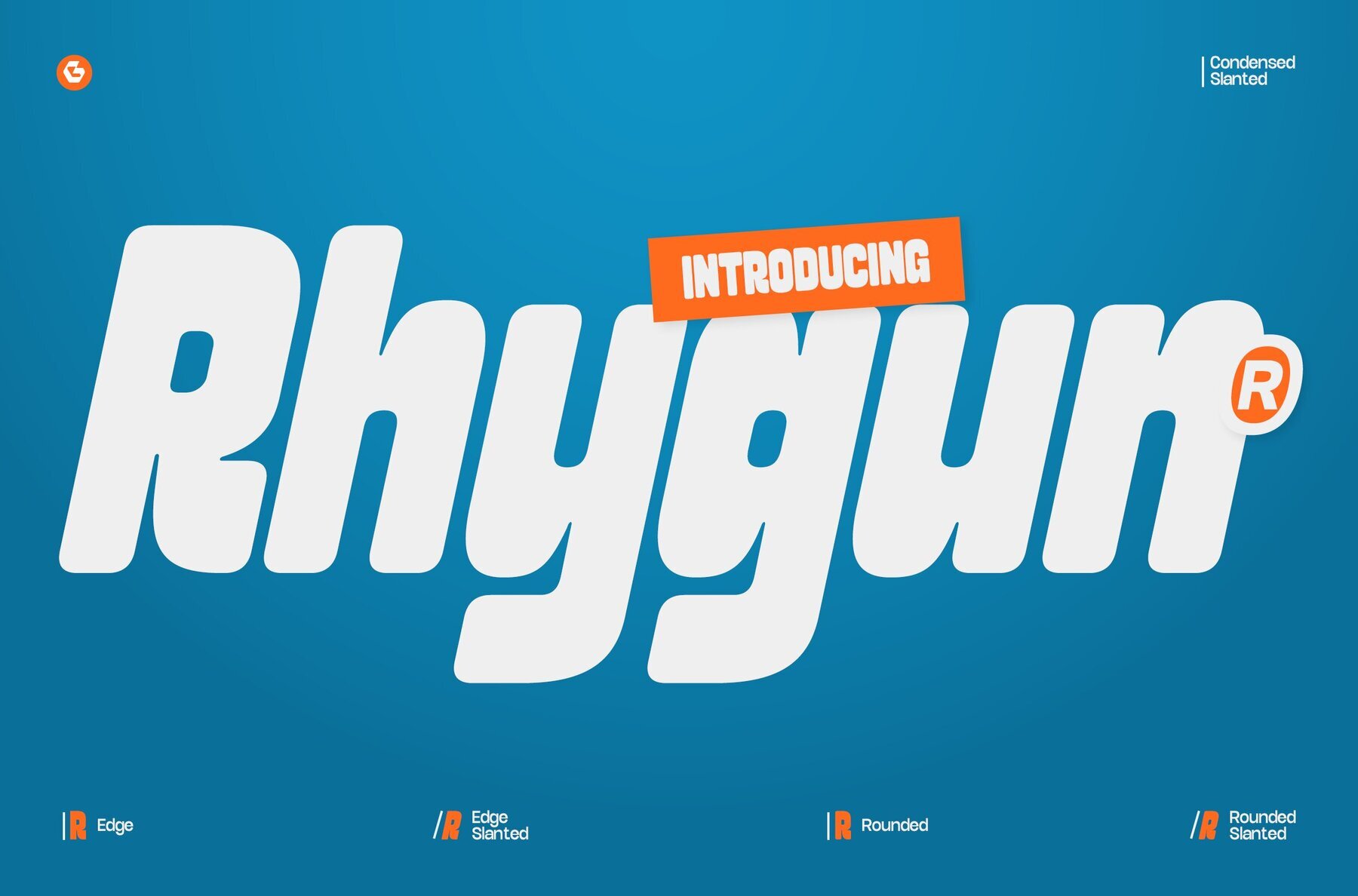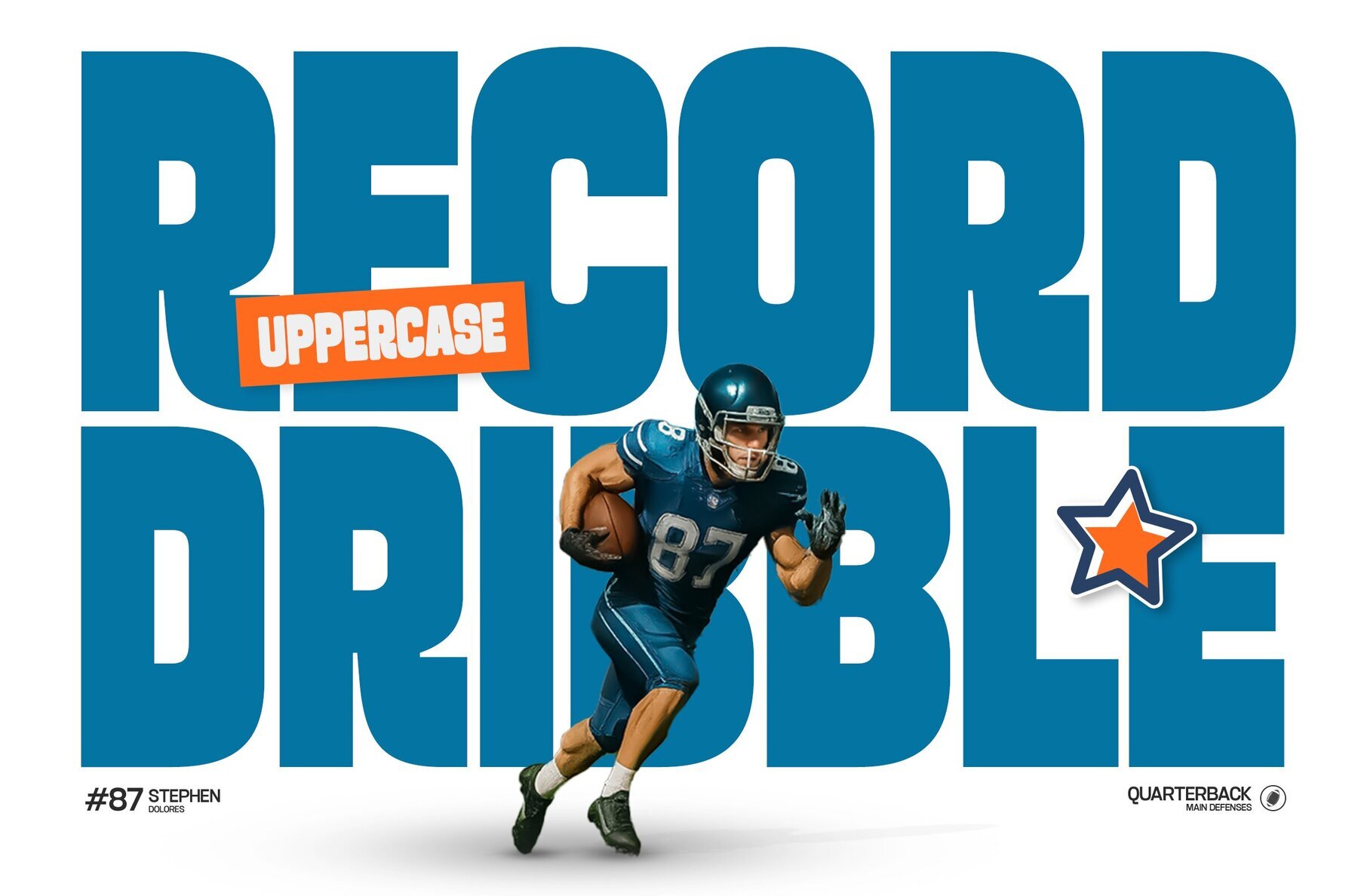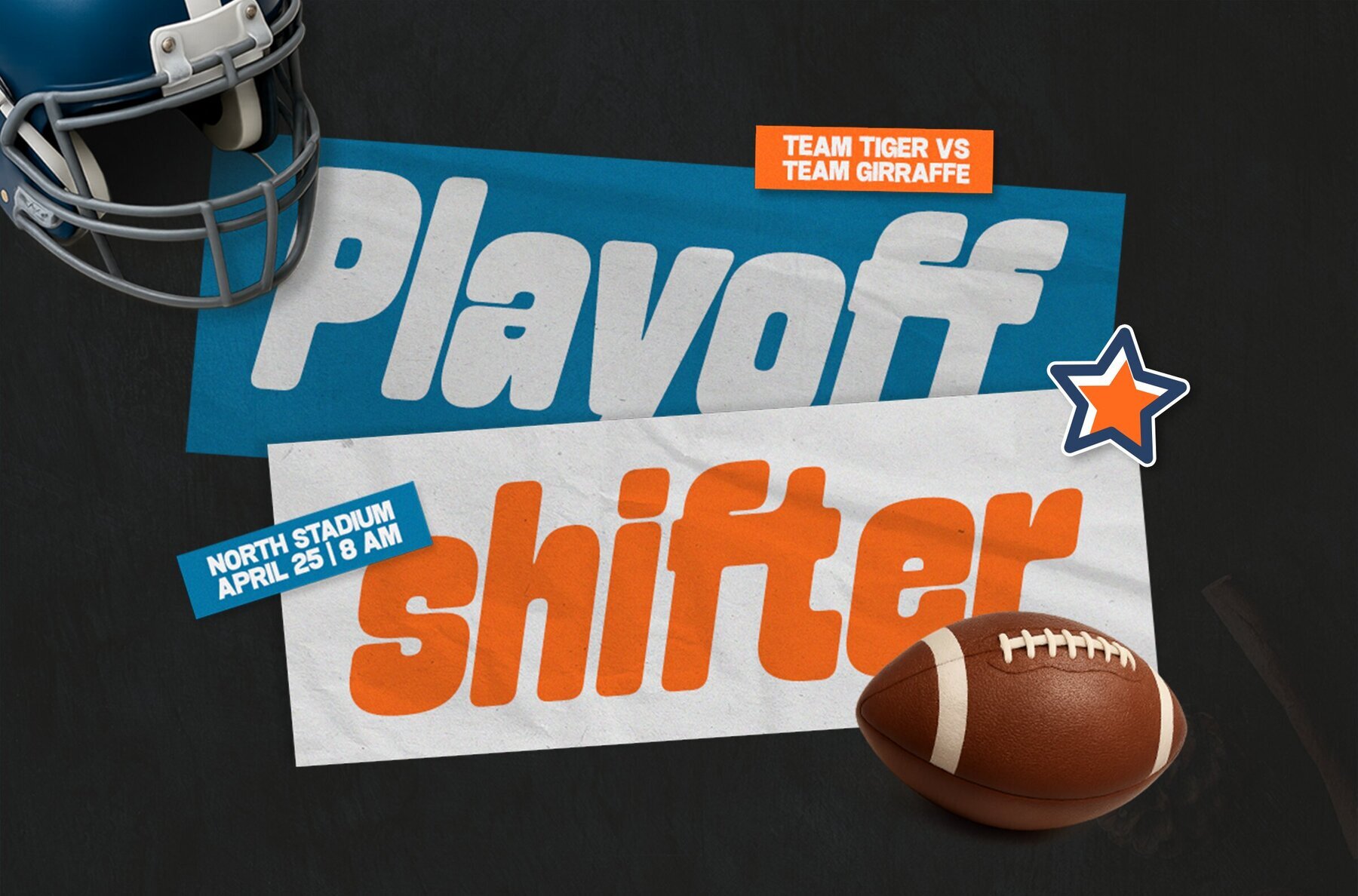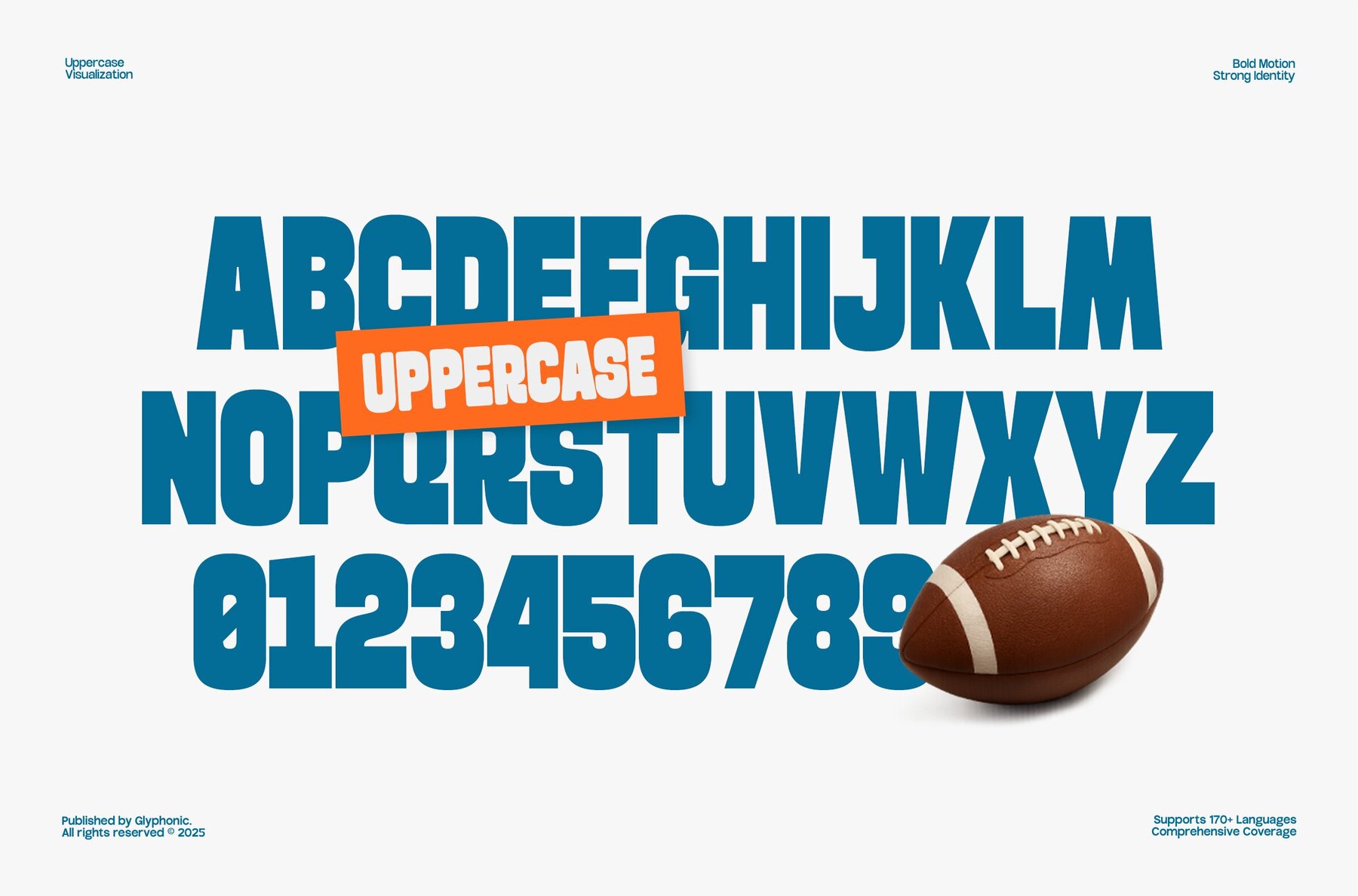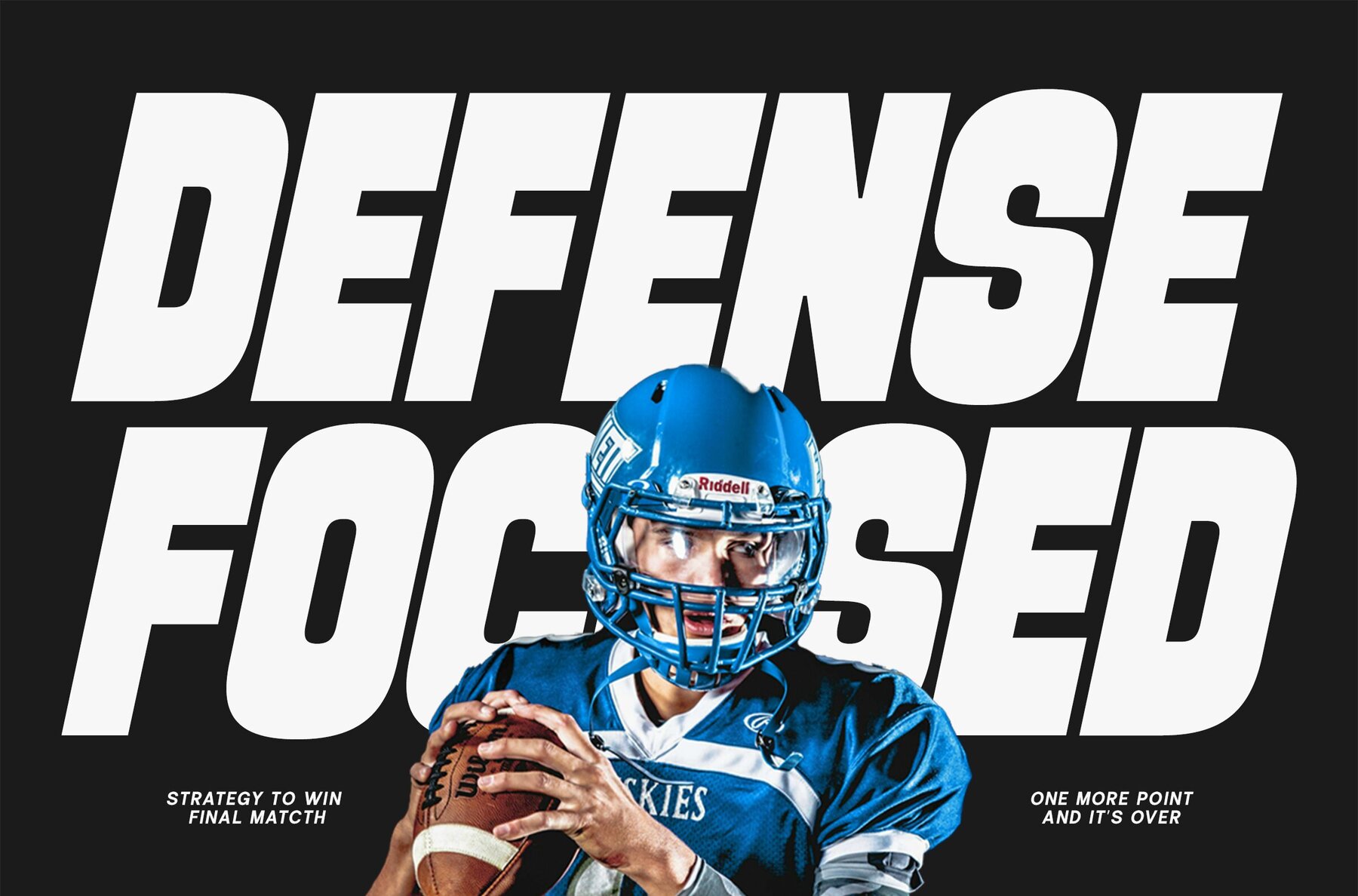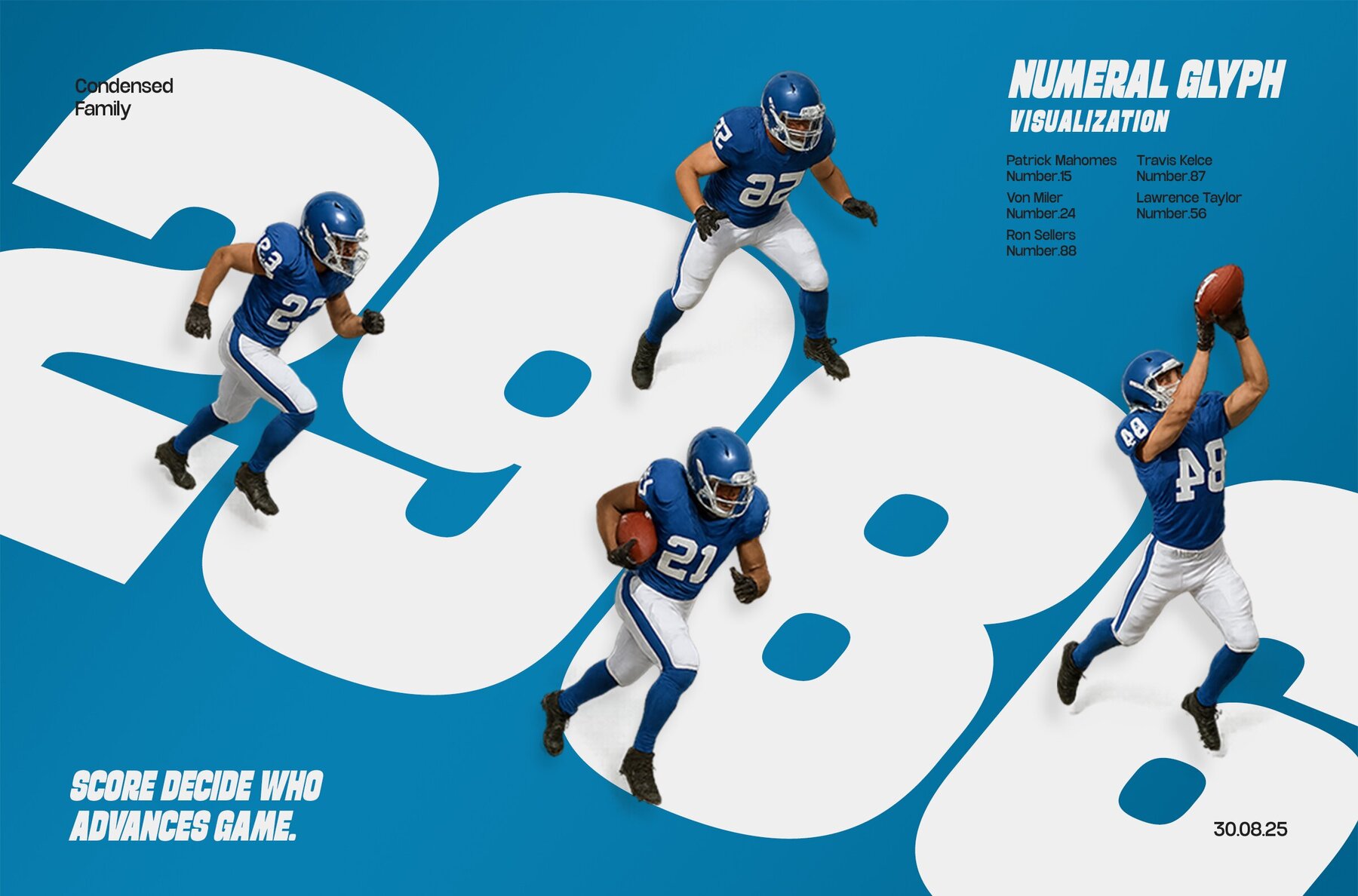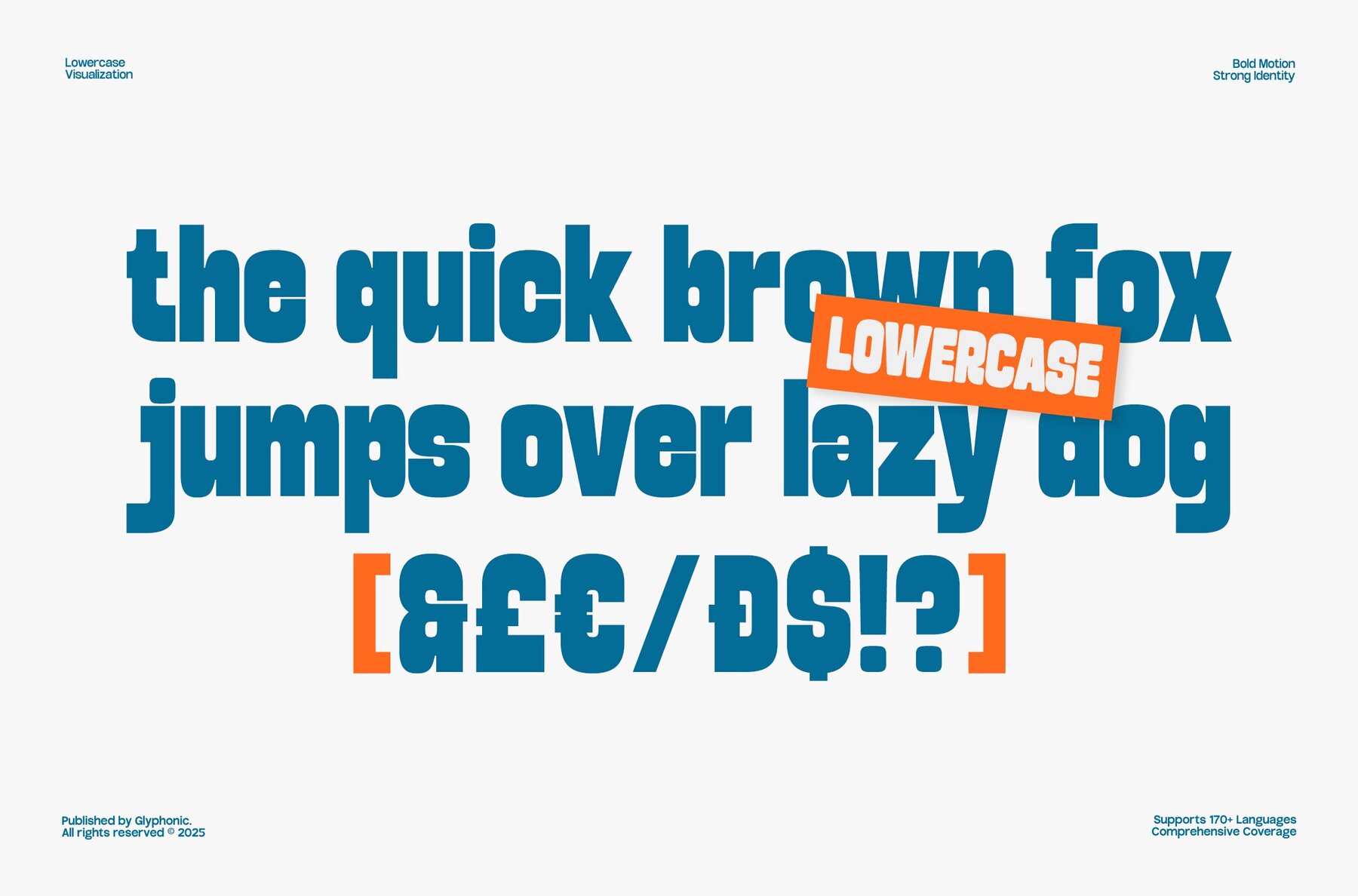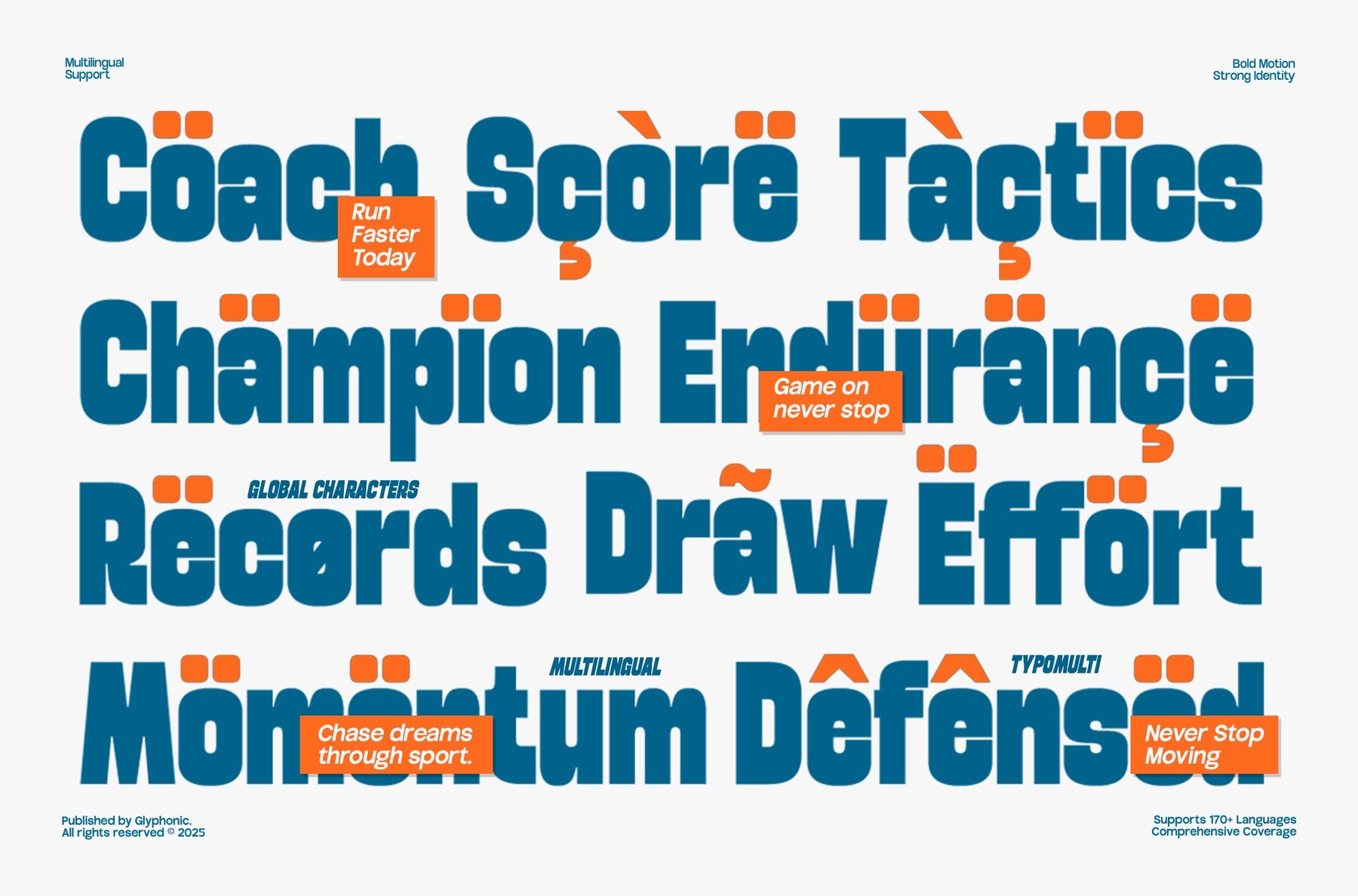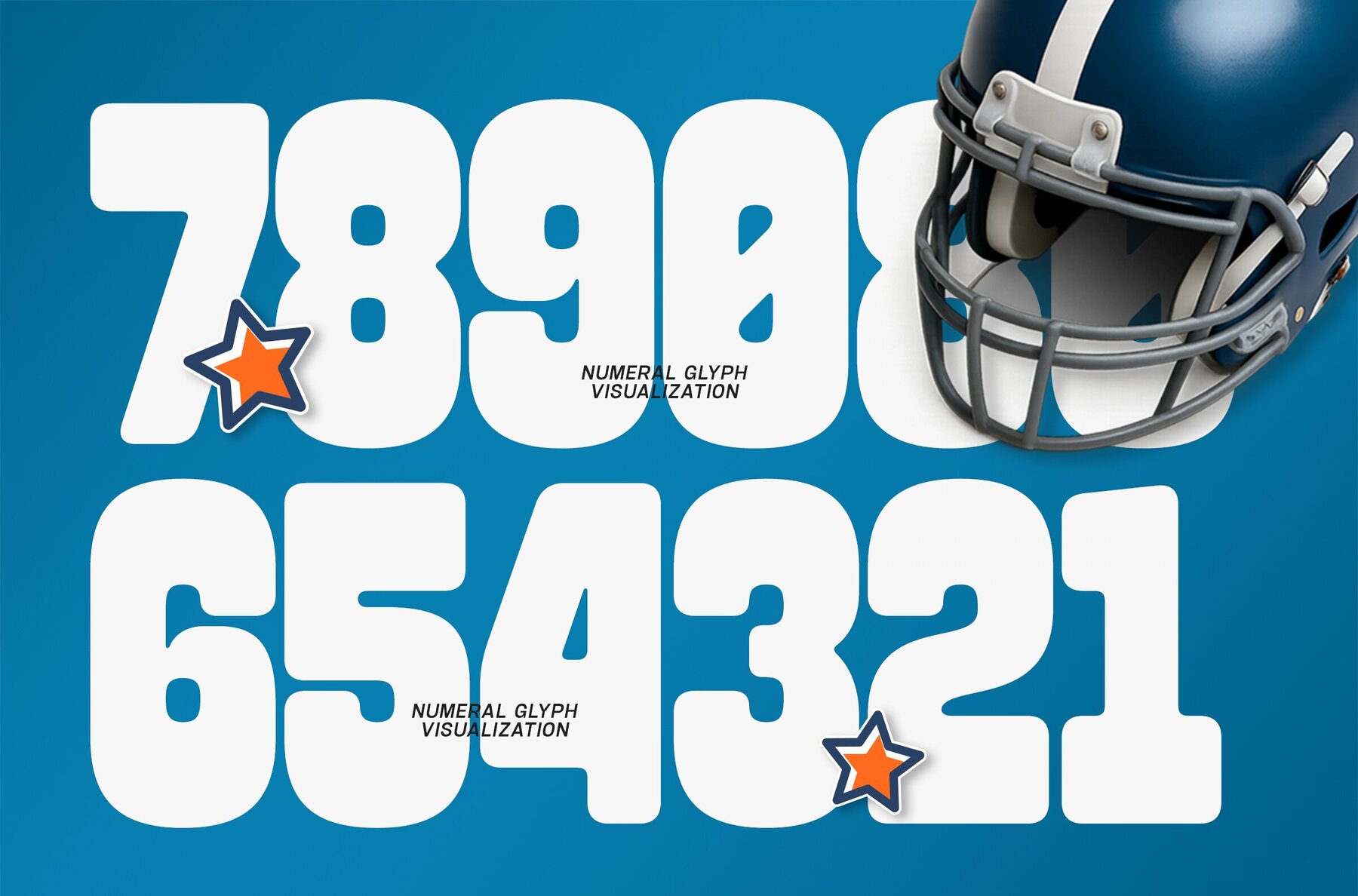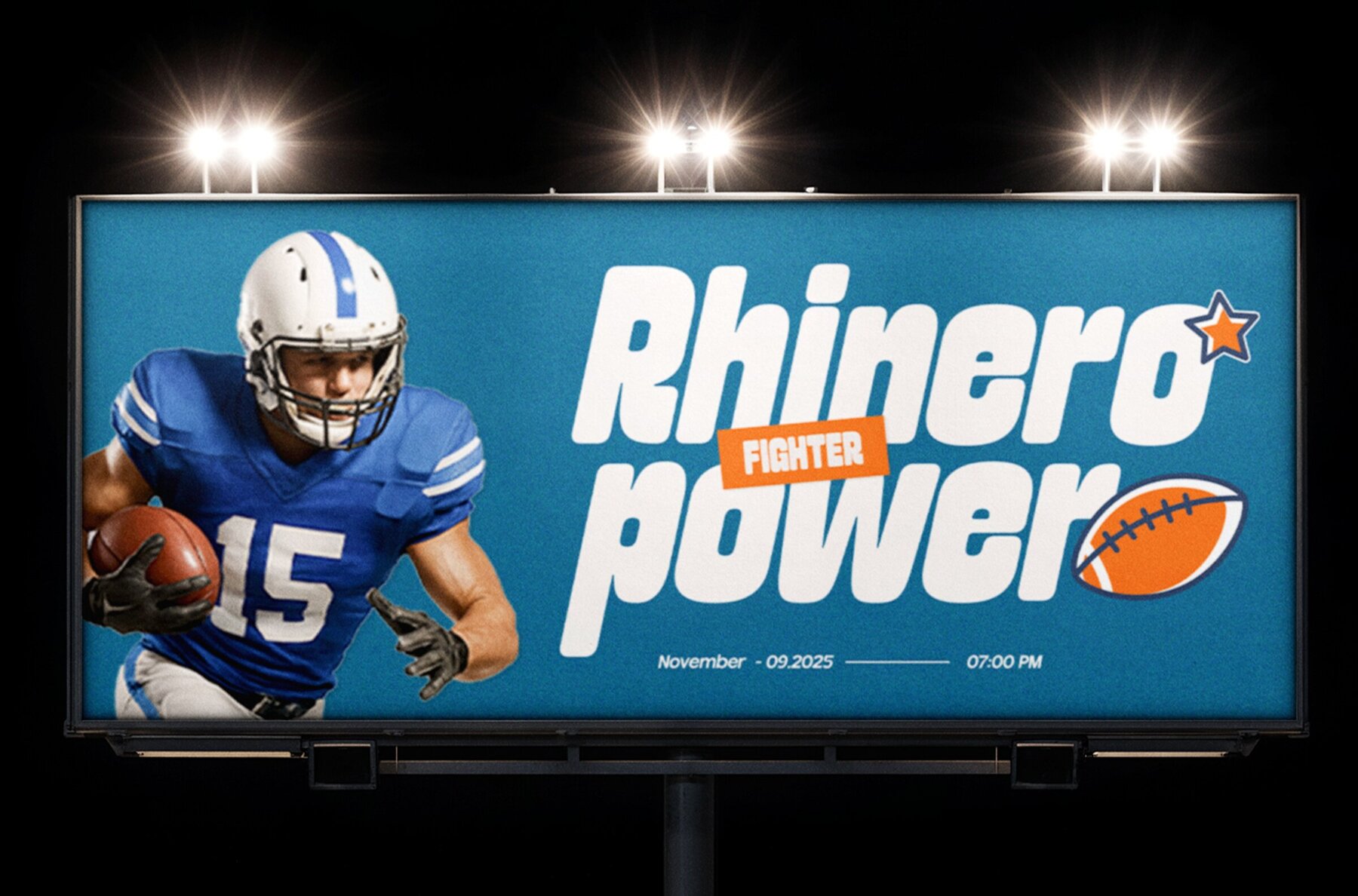
GC Rhygun Font
GC Rhygun Semi Rounded
GC Rhygun Semi Rounded Slanted
GC Rhygun Edge
GC Rhygun Edge Slanted
GC Rhygun Rounded
GC Rhygun Rounded Slanted
Meet GC Rhygun, a bold and vibrant display typeface that infuses energy and impact into your design work. Its condensed form and smooth, rounded edges, coupled with a forward-slanted style, create a dynamic feel that's both modern and playful. Whether you're designing for sports branding, creating standout headlines, or crafting digital graphics, GC Rhygun adds a strong yet approachable character to any project. Perfectly suited for posters, packaging, and various digital formats, this typeface offers a confident and energetic voice for your typography needs. GC Rhygun's adaptability ensures it fits effortlessly into a sporty, modern, or eye-catching design aesthetic, making your project truly stand out. Elevate your design with the bold motion and playful strength of GC Rhygun—where versatility meets distinct style.GC Rhygun Typeface